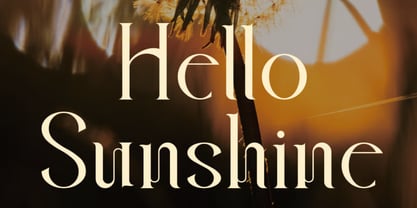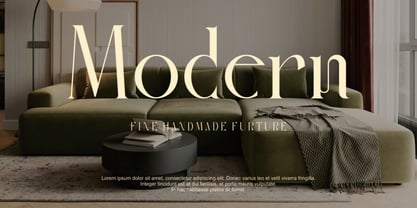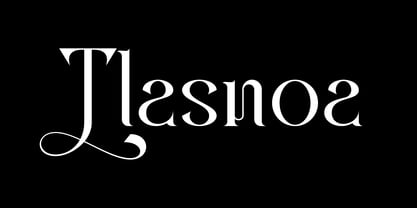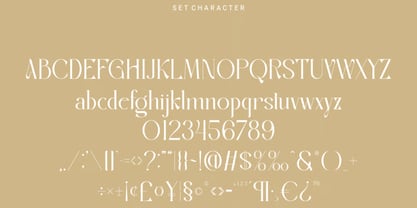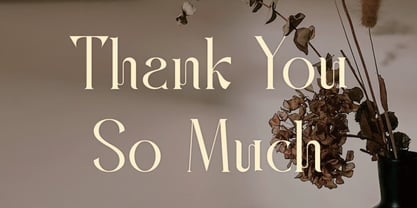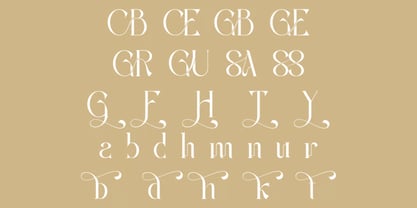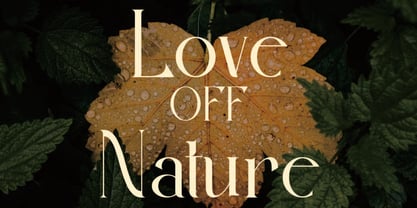
Tlasnos
by Hasnat Studio
The Tlasnos Font Family was designed by Hasnat Khan and published by Hasnat Studio. Tlasnos contains 1 styles. More about this family
Tlasnos is a modern and refined serif typeface that seamlessly blends timeless elegance with contemporary design sensibility. With its graceful curves, subtle contrasts, and stylish ligatures, this font exudes luxury, sophistication, and artistic balance—making it perfect for creating designs that leave a lasting impression. Ideal for branding, fashion editorials, wedding invitations, packaging design, social media posts, and high-end advertising, Tlasnos adds an aura of exclusive charm and modern refinement to every project. Its alternates and multilingual support enhance its versatility for both display and editorial applications. Tlasnos ensures seamless compatibility across digital and print platforms, delivering premium quality and timeless appeal for every creative purpose, from bold headlines to elegant body text. ✦ Font Features: Uppercase & Lowercase Letters, Alternates & Ligatures for design flexibility, Numbers & Punctuation, Multilingual Support. ✦ Perfect For: Luxury Branding & Visual Identities, Fashion & Beauty Logos, Editorial & Magazine Layouts, Wedding Invitations & Stationery, Premium Packaging Design, Social Media Templates & Ads. Bring a sense of modern luxury and timeless sophistication to your work with Tlasnos — the perfect serif font for impactful, elegant branding.